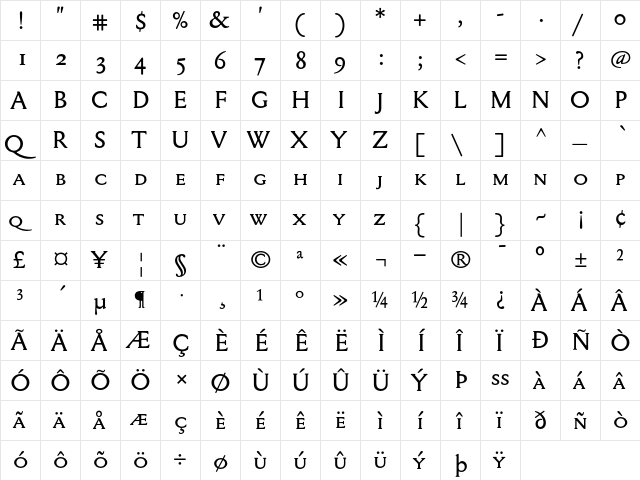
Mediaeval SCOSF Regular
| Foundry | Frantisek Storm |
| Designer | Frantisek Storm |
Design Context for Mediaeval SCOSF Typeface
Mediaeval SCOSF is a composed and adaptable typeface that performs quietly and consistently across a wide range of design contexts.